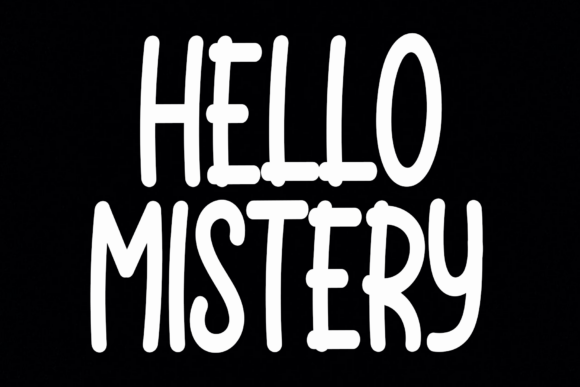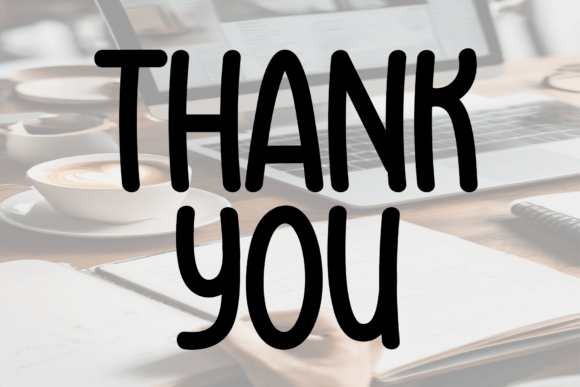
Unleash Your Design’s Potential with Bundle Font: A Comprehensive Guide to Modern Display
In the realm of typography, a well-chosen font can elevate your design from ordinary to extraordinary. For designers and crafters seeking a bold, attention-grabbing typeface, the Modern Display font is an exceptional choice. This bundle font is a bold, quirky powerhouse designed to pop off the page, making it perfect for headlines, posters, and any design that needs to communicate energy and a modern, slightly offbeat personality.
The Unique Aesthetic of Modern Display
The Modern Display typeface features a unique “knobby” or jointed aesthetic on its stems, giving it a playful, hand-constructed look. This distinctive characteristic sets it apart from other fonts and makes it an excellent choice for designers looking to add a touch of whimsy to their work. The font’s bold and quirky design makes it an ideal selection for child-friendly branding, creative workshop flyers, or bold editorial headers.
Key Features of Modern Display
- Bold and Quirky Design: The Modern Display font boasts a bold, attention-grabbing design that’s perfect for making a statement.
- Unique “Knobby” Aesthetic: The font’s distinctive “knobby” or jointed aesthetic on its stems gives it a playful, hand-constructed look.
- High Legibility: Despite its bold design, the Modern Display typeface remains highly legible even from a distance, making it perfect for use in a variety of design applications.
- Versatile: This font is suitable for a wide range of design projects, from child-friendly branding to bold editorial headers.
Using Modern Display in Your Design
When using the Modern Display font in your design, it’s essential to consider the overall aesthetic you want to achieve. To lean into its fun, youthful energy, pair it with bright, high-contrast colors. This will help make your typography the hero of the design and create a visually appealing contrast. The font’s thick, uniform weight ensures that it remains highly legible, even when used in larger sizes or from a distance.
Design Applications for Modern Display
The Modern Display font is an incredibly versatile typeface that can be used in a wide range of design applications, including:
- Child-Friendly Branding: The font’s playful, hand-constructed look makes it an excellent choice for child-friendly branding, such as logos, packaging, and marketing materials.
- Creative Workshop Flyers: The Modern Display font is perfect for creating eye-catching flyers for creative workshops, classes, or events.
- Bold Editorial Headers: Use the font to create bold, attention-grabbing headers for editorial content, such as magazine articles, blog posts, or social media graphics.
- Posters and Print Materials: The font’s bold design makes it an excellent choice for posters, flyers, brochures, and other print materials.
Tips for Pairing Modern Display with Other Fonts
When pairing the Modern Display font with other fonts, it’s essential to consider the overall aesthetic you want to achieve. Here are a few tips to keep in mind:
- Contrast is Key: Pair the Modern Display font with a font that has a significantly different style or weight to create visual interest and contrast.
- Consider the Mood: Choose a font that complements the mood and tone of your design. For example, a playful font like Modern Display pairs well with a more serious, elegant font.
- Don’t Overdo It: Limit your font choices to two or three to avoid visual clutter and ensure that your design remains cohesive.
In conclusion, the Modern Display font is an exceptional choice for designers and crafters seeking a bold, attention-grabbing typeface. Its unique “knobby” aesthetic, bold design, and high legibility make it perfect for a wide range of design applications. By pairing it with bright, high-contrast colors and using it in creative ways, you can unleash your design’s potential and make a lasting impression on your audience.
Whether you’re working on child-friendly branding, creative workshop flyers, or bold editorial headers, the Modern Display font is an excellent addition to your design toolkit. So why not give it a try and see how it can elevate your design to the next level?